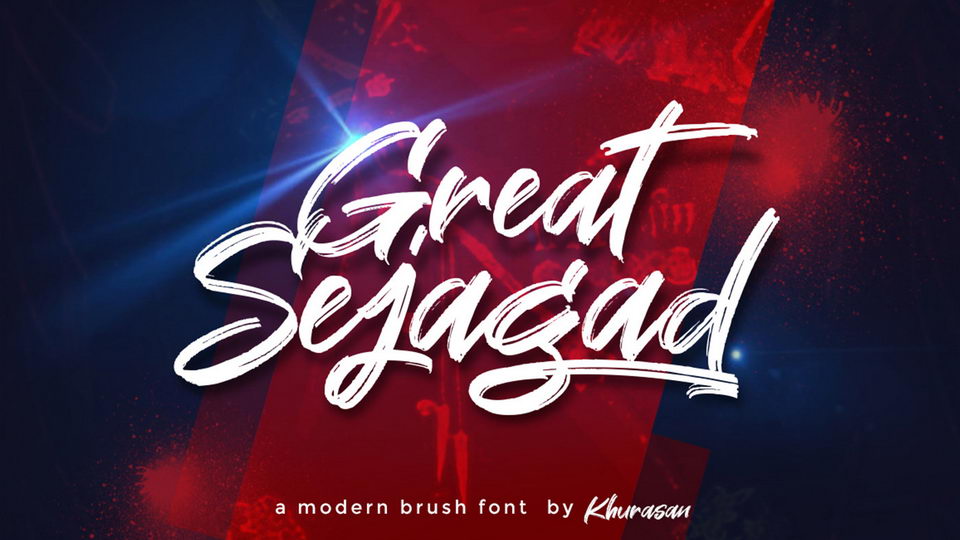
Download Great Sejagad font, a striking handwritten rough brush script. Great Sejagad font works perfect for branding, packaging and merchandise, posters, social media and more.